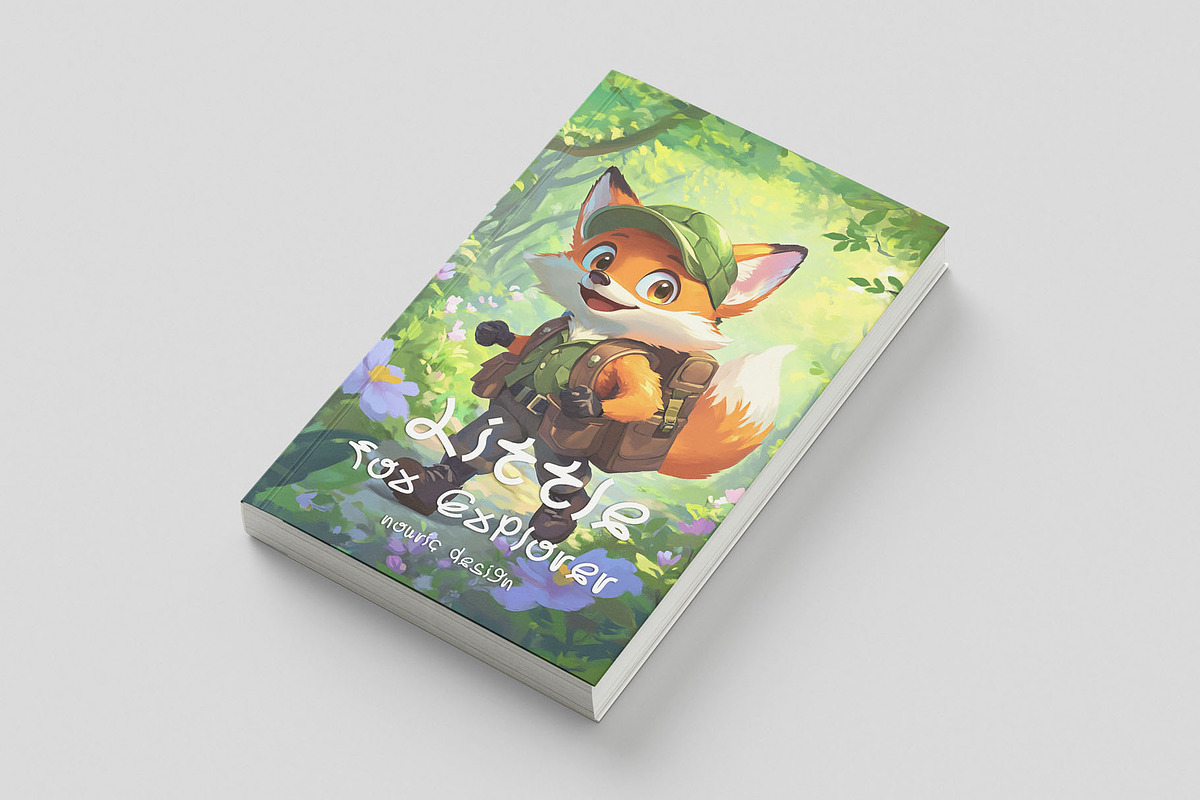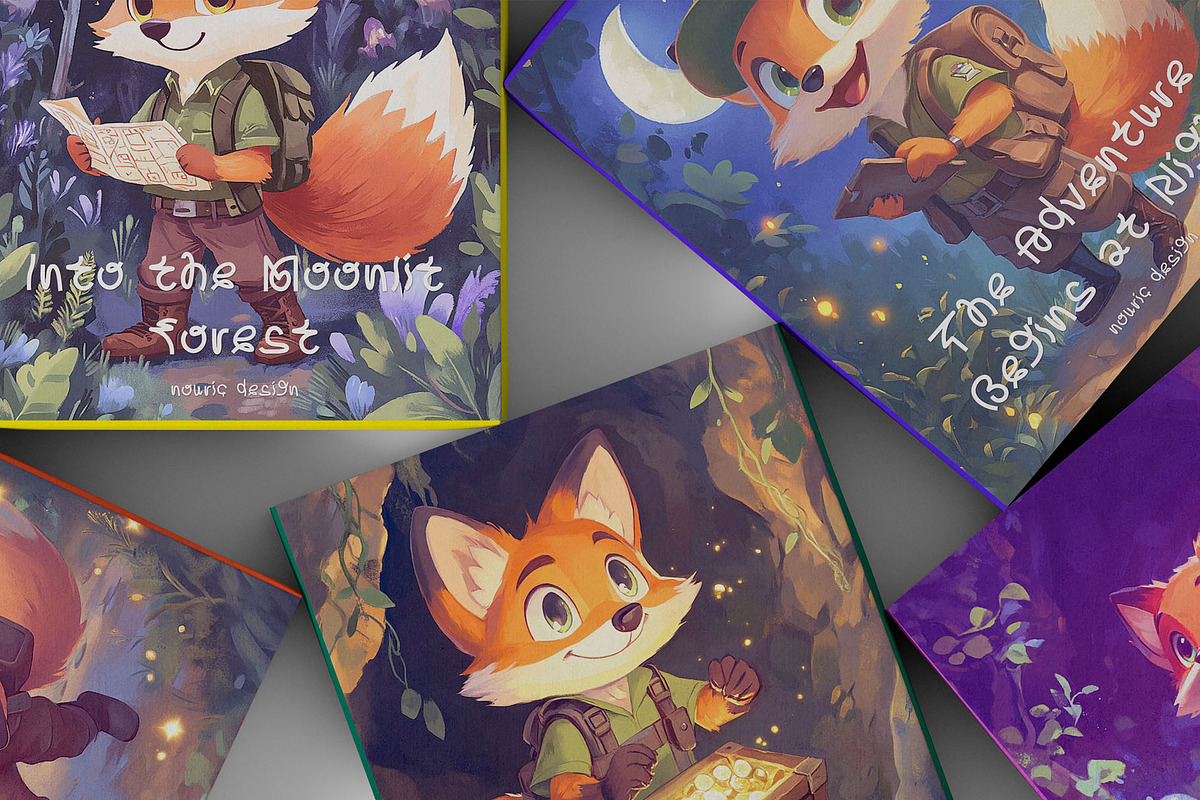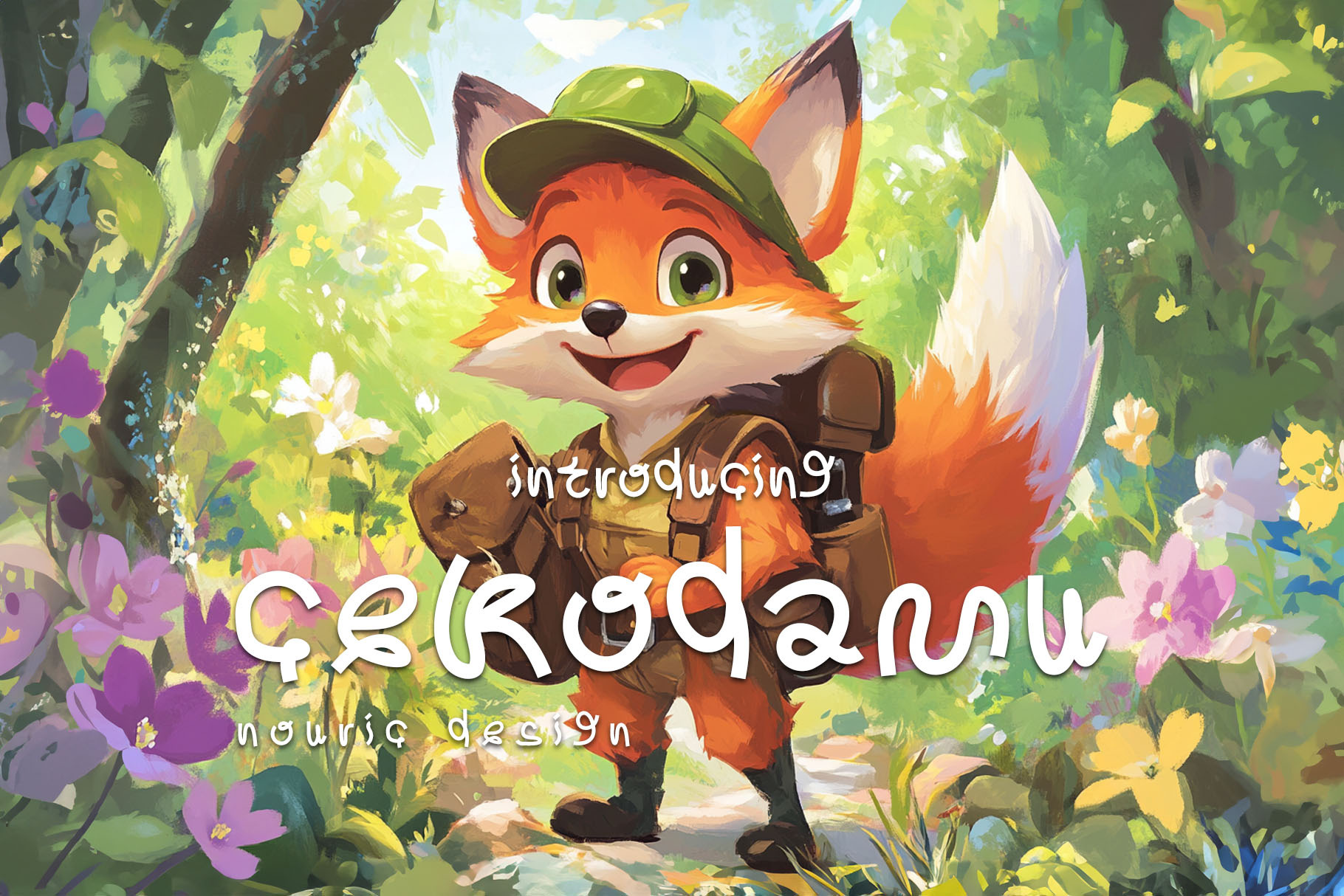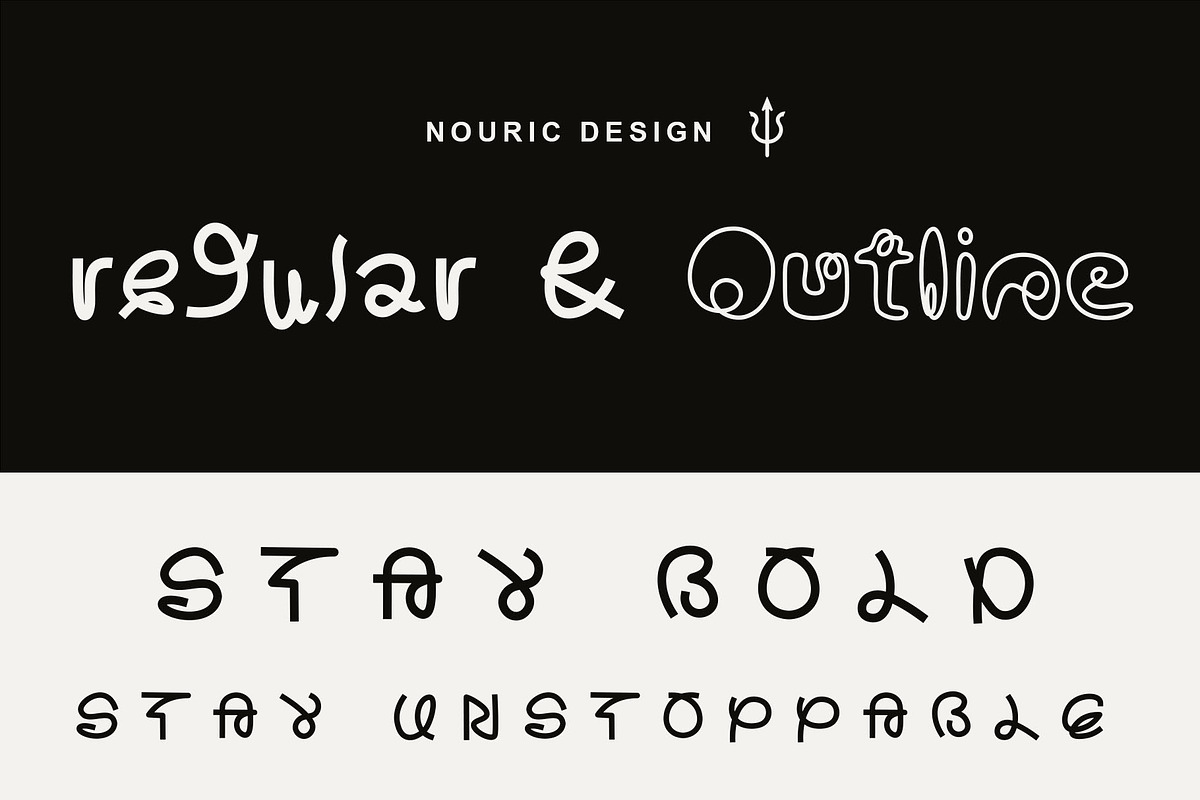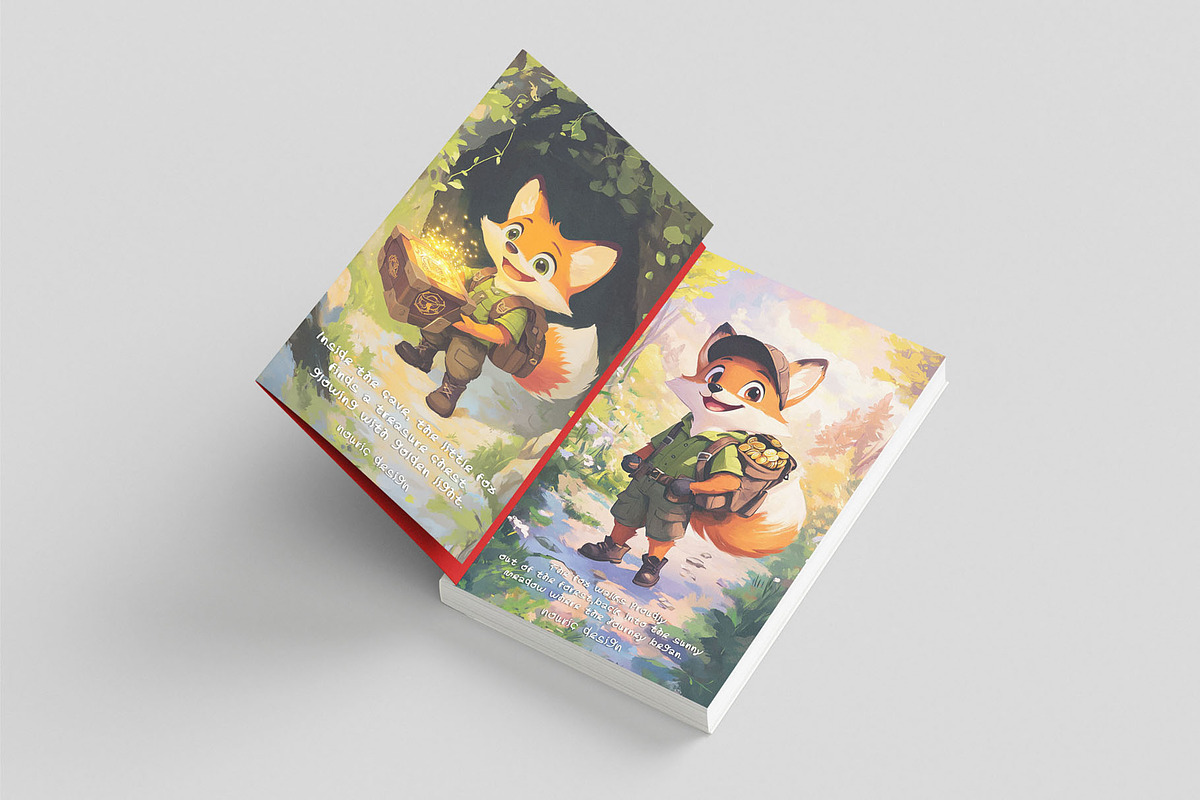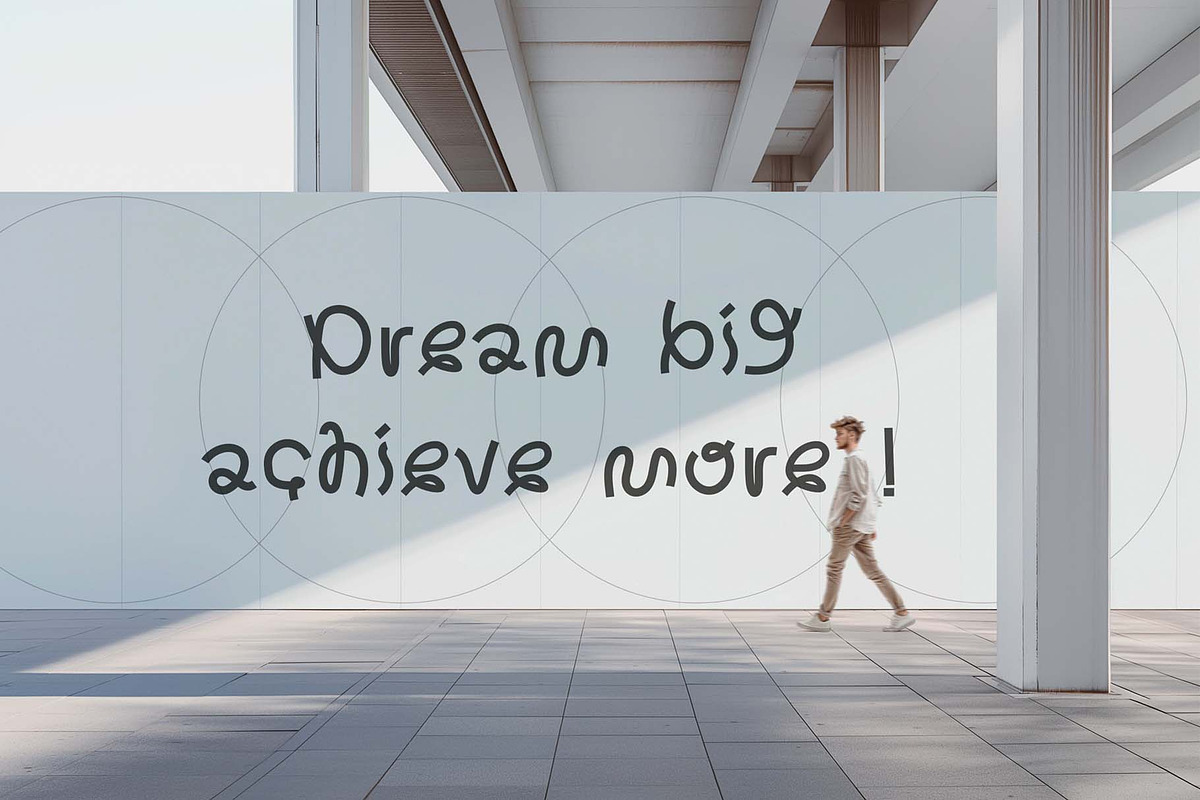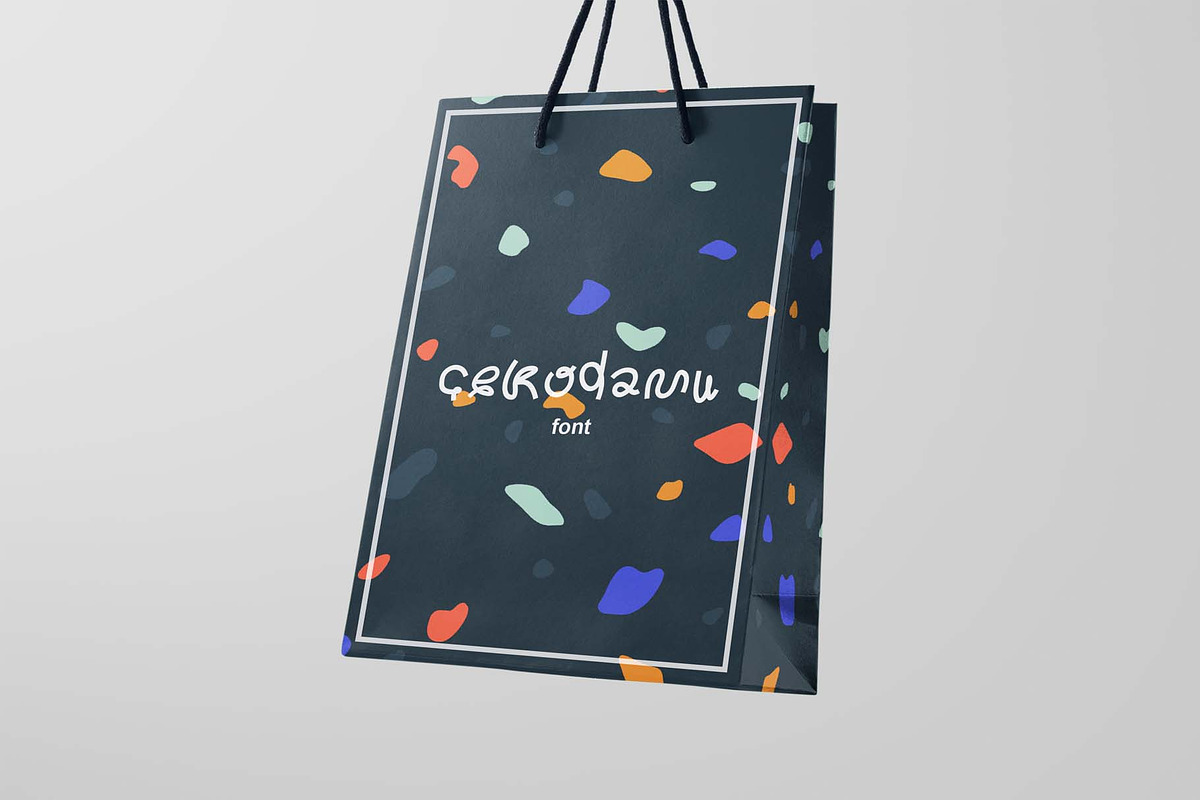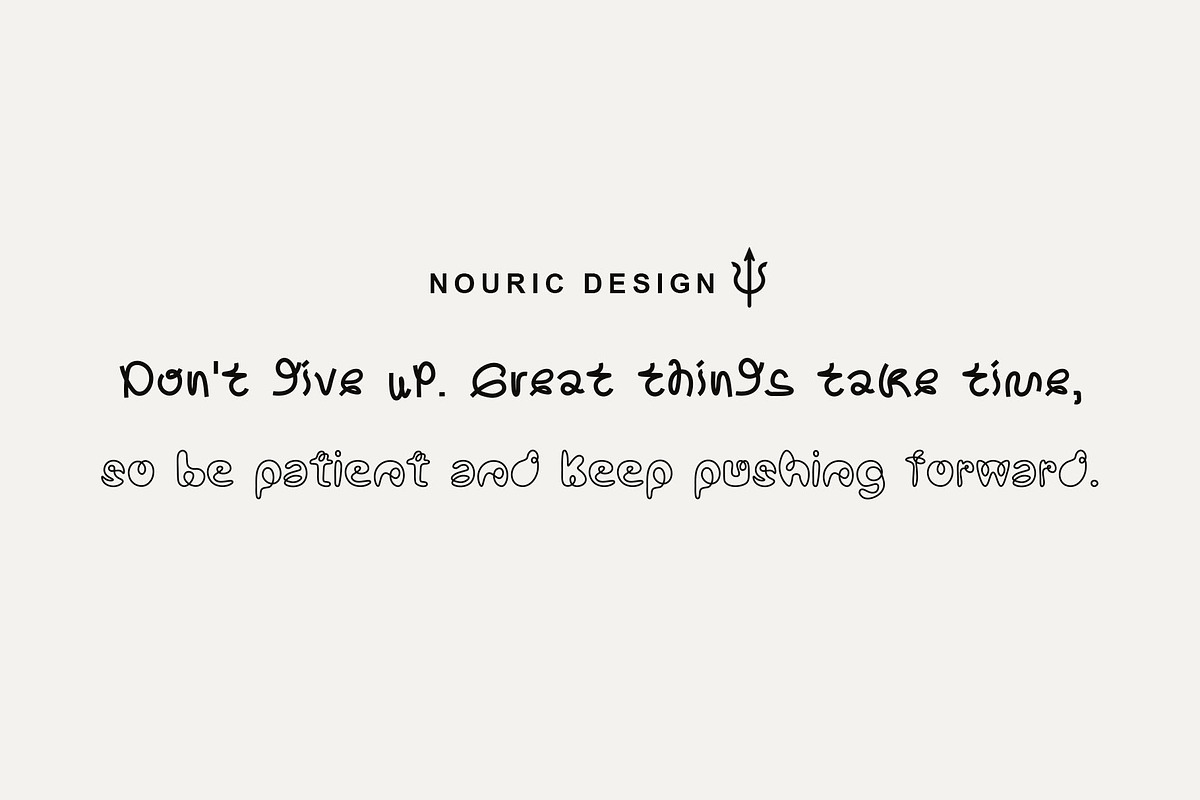
ND Cekodamu - Storybook Typeface
Introducing Cekodamu
A bold and playful display font that adds personality to any project! Perfect for posters, logos, social media, and more, this font brings an eye-catching and modern touch to your designs. With its unique style, Cekodamu will elevate your creative projects and make them stand out from the crowd. Ideal for creatives looking for something fresh and impactful—grab it now and make your designs pop!
- Unique Character Designs: Every letter boasts its own playful style, ensuring your text stands out.
- Versatile Use: Perfect for children's books, greeting cards, branding, and more.